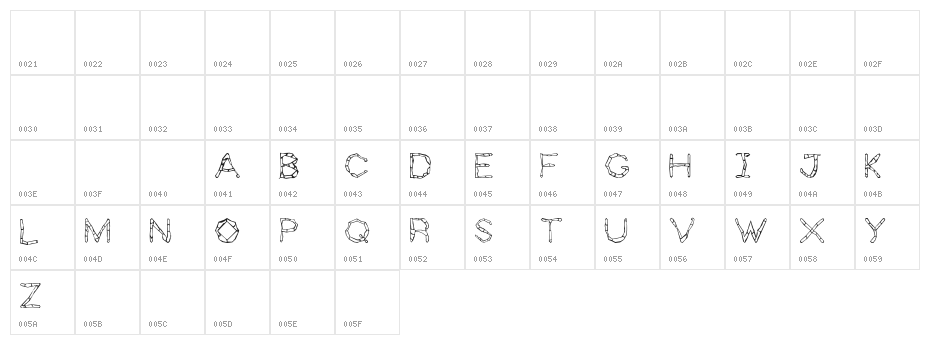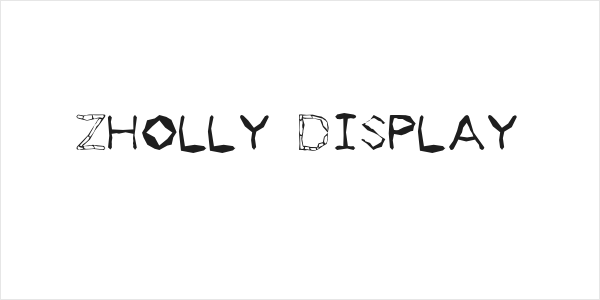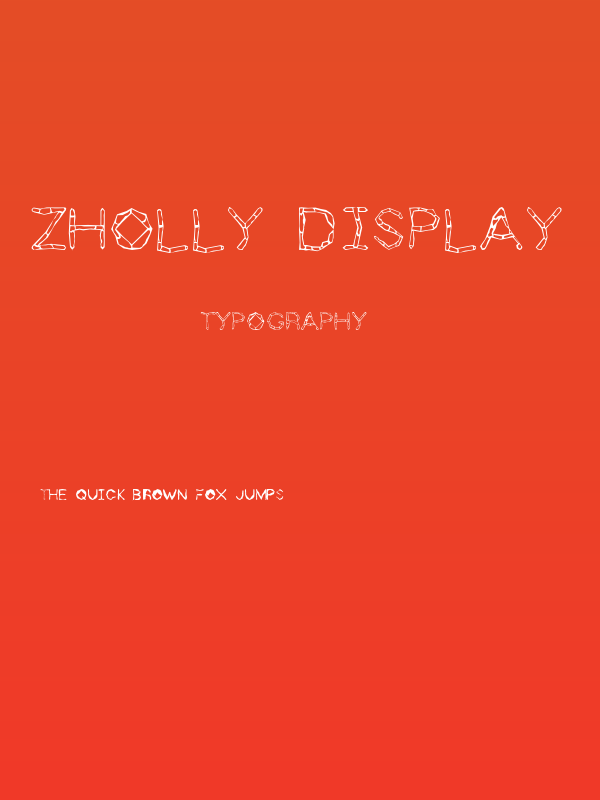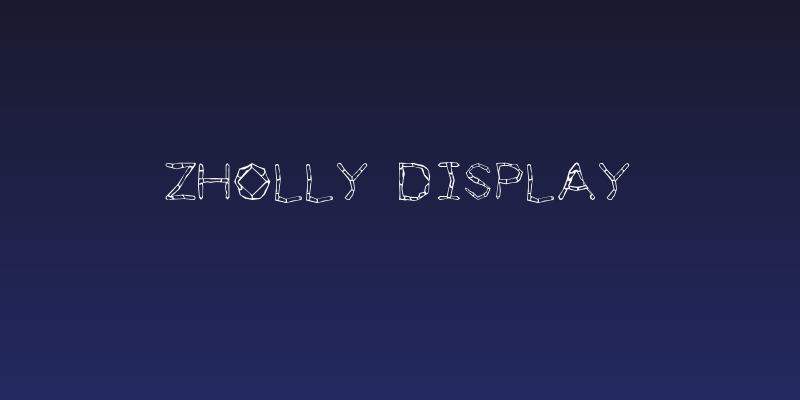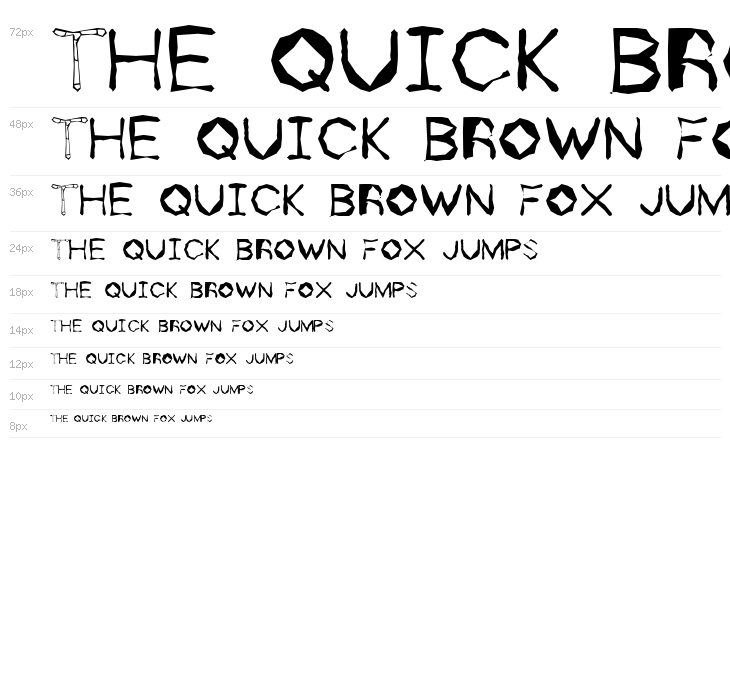
Zholly Display Font
Zholly Display Description
This font features a unique and artistic design with an organic, hand-drawn appearance. The uppercase letters are crafted with irregular, jagged edges that give them a dynamic and edgy look. The lowercase letters maintain this style, providing a cohesive and visually striking appearance. The numbers and special characters follow the same design principles, ensuring consistency across all glyphs. This font's distinct style makes it ideal for creative projects that require a bold and unconventional aesthetic.
| Overall Style | Artistic, Edgy, Hand-drawn |
| Use Case | Headlines, Logos, Artistic projects |
| Proposed Projects | Ideal for album covers, posters, artistic branding, and creative design projects. |